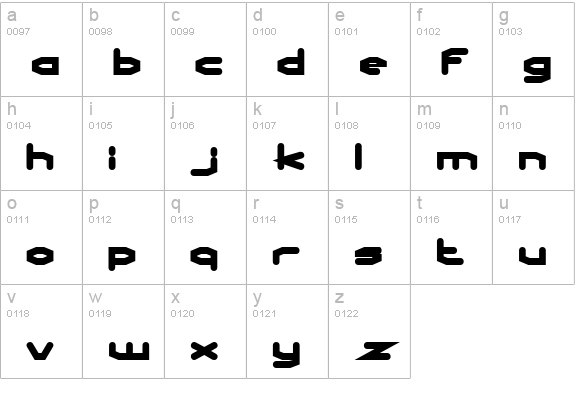
Charles in Charge Font Details
"Charles in Charge font exudes a perfect balance of sophistication and playfulness, making it a versatile typeface suitable for a wide range of design projects. With its clean lines and stylish curves, this font effortlessly captures attention and adds a touch of elegance to any text. Whether used for branding, invitations, or social media graphics, Charles in Charge font is sure to make your content stand out. Best of all, this charming font is completely free to download at FontsMarket.com. Embrace the creativity and versatility of Charles in Charge font today and elevate your design projects to new heights!"